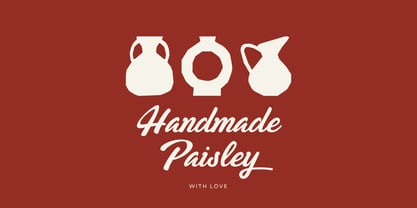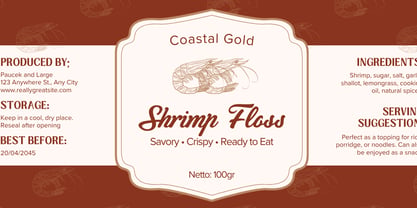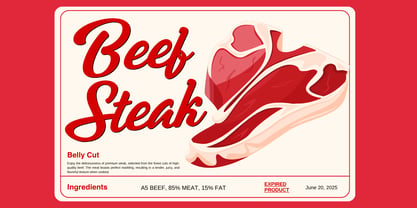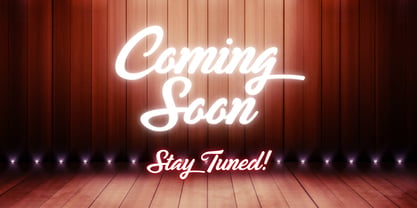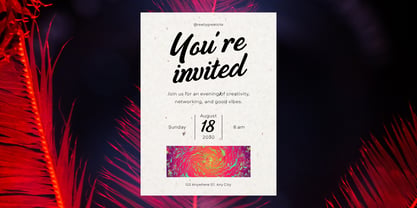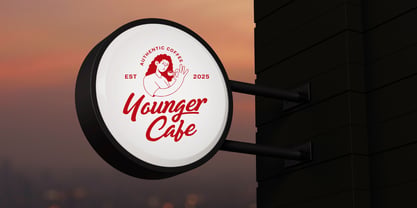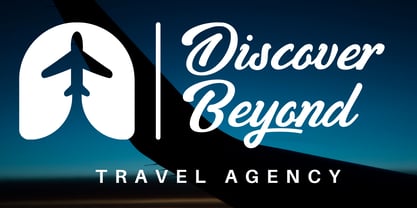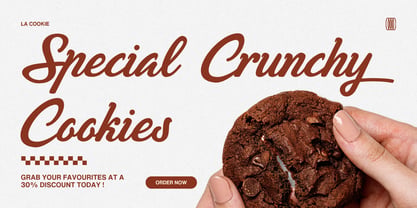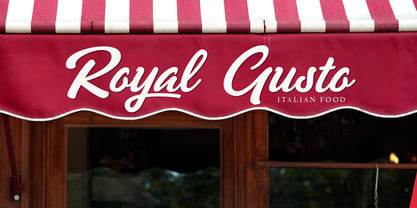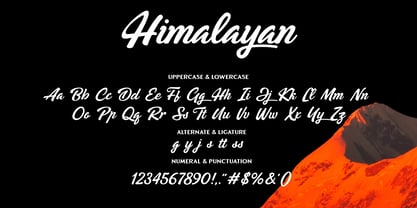
Himalayan
Himalayan is a bold script typeface that combines strong character with elegant handwritten flow. Designed with attention to detail, it features smooth curves and dynamic strokes that create a confident and stylish appearance.
Equipped with ligatures and stylistic alternates, Himalayan offers versatility and creative freedom, making it suitable for a wide range of design applications—from branding and logos to packaging and editorial use.
Its bold presence ensures high readability while maintaining a sophisticated and modern aesthetic.
Features:
• Bold script design
• Ligatures & stylistic alternates
• Multilingual support
• Complete punctuation